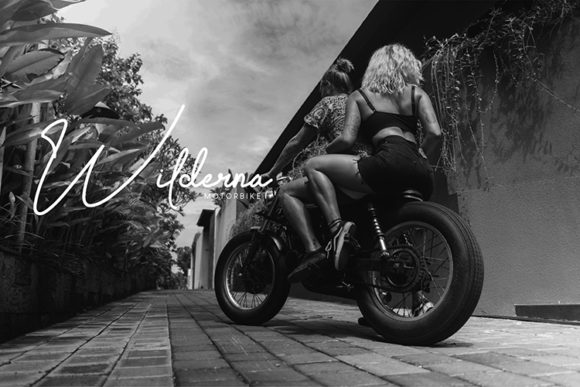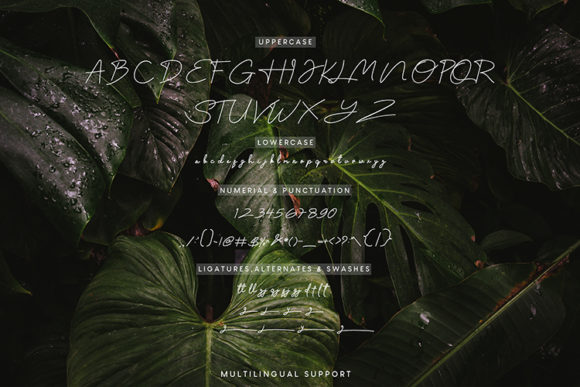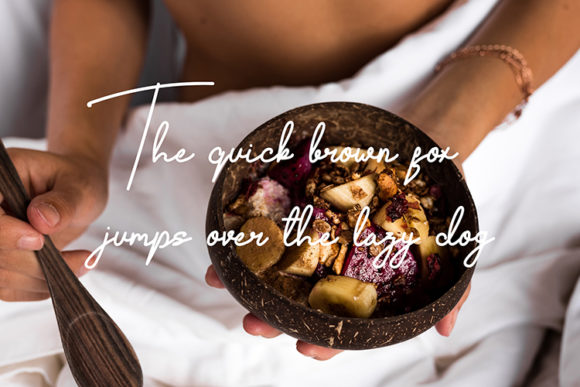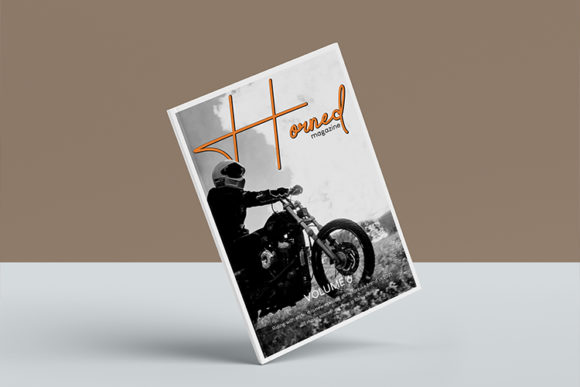
About Kally Dreams Font
Kally Dreams is indeed a beautiful and friendly handwritten font that captivates with its unique and timeless style. Its charming and whimsical letterforms add a touch of warmth and playfulness to any design.
With Kally Dreams, you have the opportunity to create truly spectacular designs. Whether you’re designing logos, branding materials, invitations, social media graphics, or any other creative project, this font will bring a delightful and distinctive flair to your work.
One of the notable features of Kally Dreams is its PUA encoding. This means that you can easily access all the available glyphs and swashes, opening up a world of design possibilities. You can add swashes, ligatures, and other decorative elements to enhance the visual appeal and create a truly personalized look.
The versatility of Kally Dreams allows it to shine in various contexts. From elegant wedding invitations to playful children’s book illustrations, this font adapts effortlessly to different design needs. Its legible and expressive letterforms ensure clarity while adding a touch of artistic charm.
When using Kally Dreams, you’ll find that its friendly and inviting style engages the viewer and creates a positive and welcoming impression. Its organic and handcrafted feel evokes a sense of authenticity and approachability, making it a perfect choice for projects that aim to connect with the audience on a personal level.
In conclusion, Kally Dreams is a beautiful and friendly handwritten font that offers a unique and timeless style. Its PUA encoding provides easy access to a wide range of glyphs and swashes, allowing you to customize and enhance your designs. Embrace the charm of Kally Dreams and let it bring your creative visions to life with its spectacular and captivating appeal.